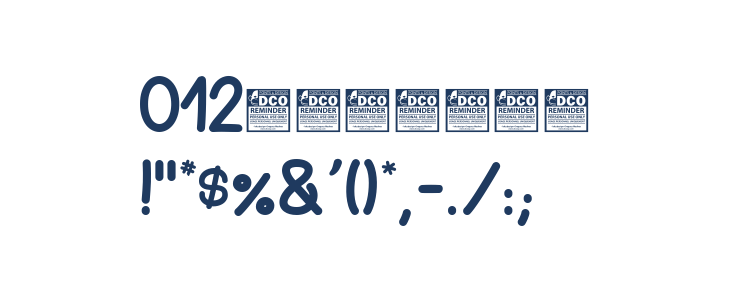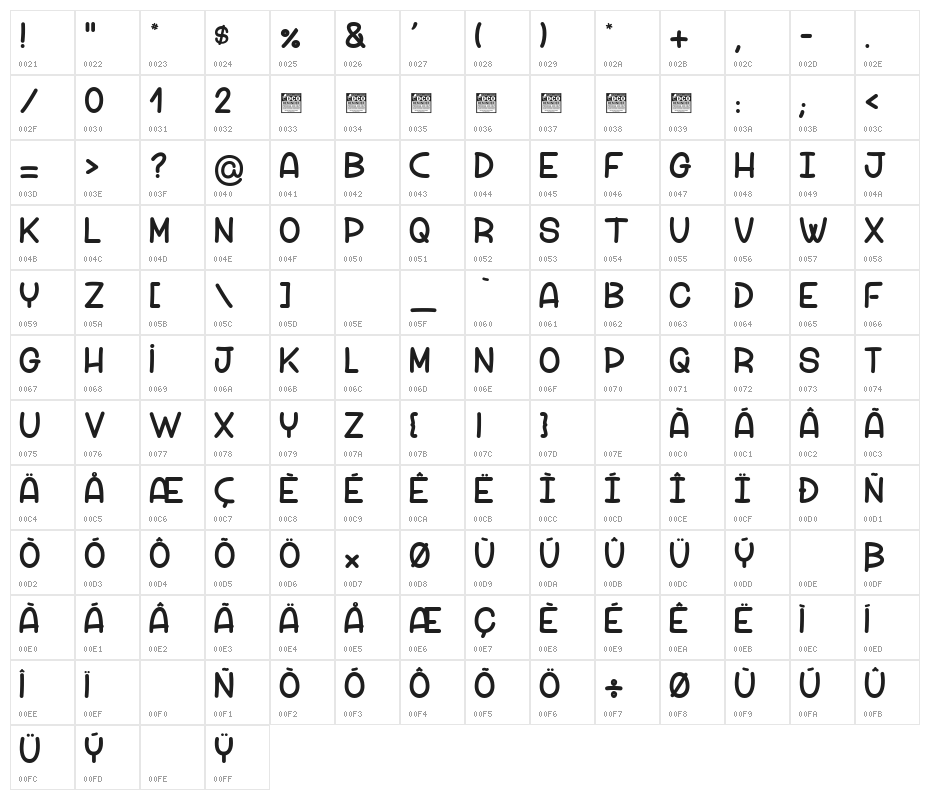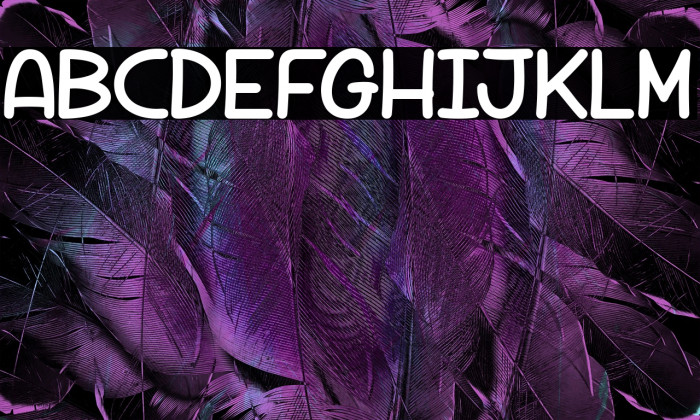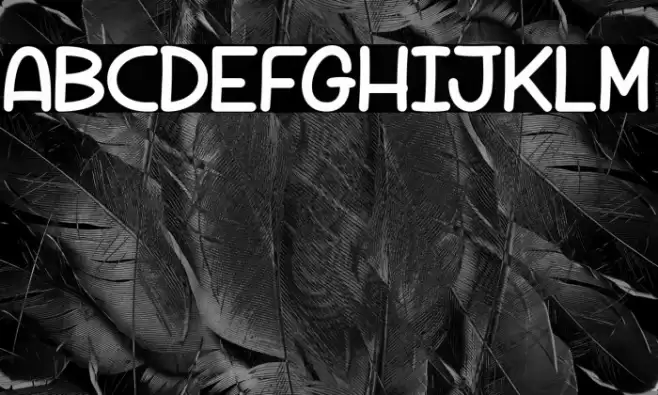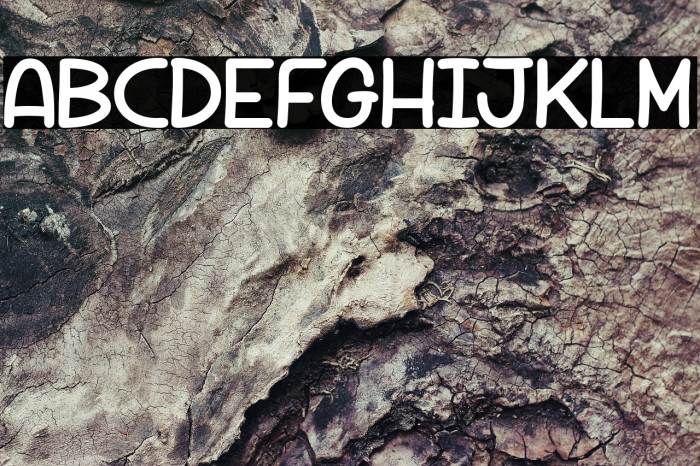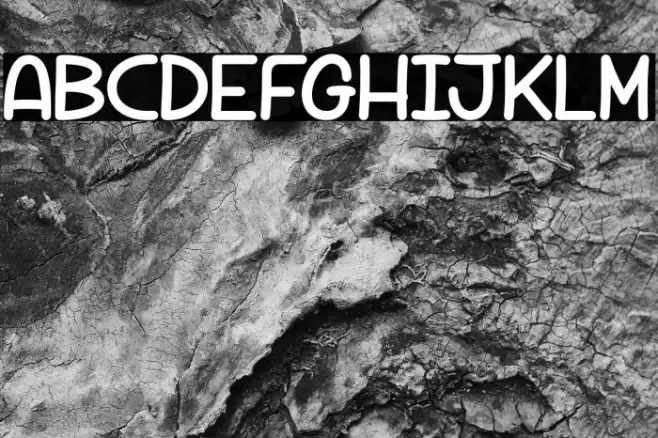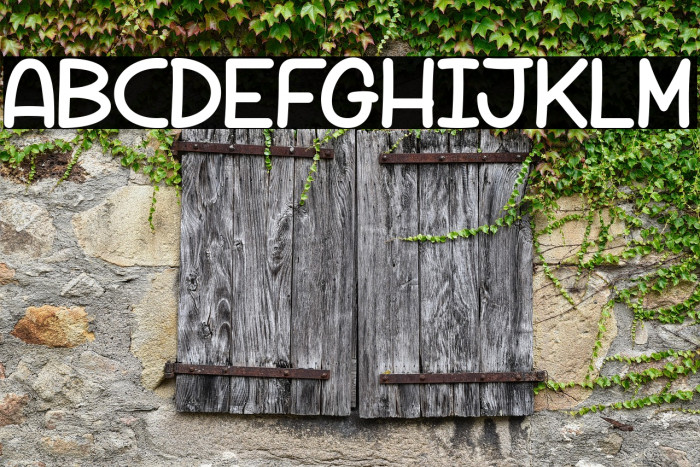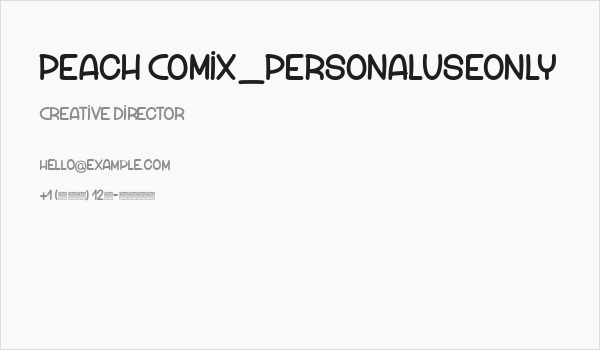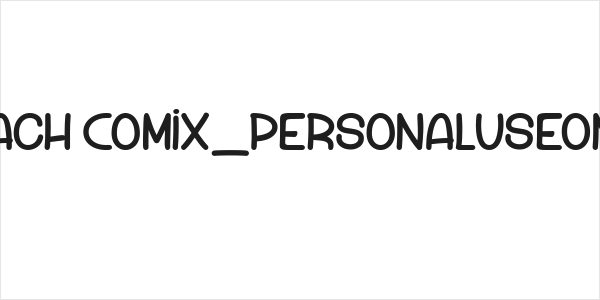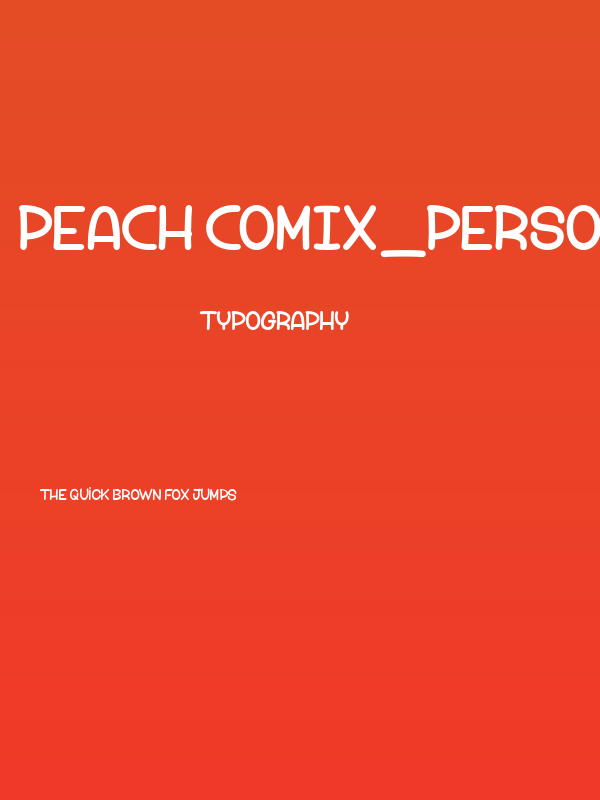
Peach Comix_PersonalUseOnly Font
Peach Comix_PersonalUseOnly Description
This playful and rounded font exudes a sense of fun and creativity, characterized by its bold, smooth curves and slightly irregular shapes. The letters are evenly spaced, providing a balanced and harmonious appearance. The font's informal and friendly style makes it ideal for projects that aim to convey a lighthearted and approachable tone. Its bold strokes and consistent weight ensure readability while maintaining a whimsical charm. The font includes a full set of uppercase and lowercase letters, numerals, and a variety of special characters, making it versatile for different design needs.
| Proposed Projects | Ideal for children's books, comic strips, playful branding, and creative posters. |